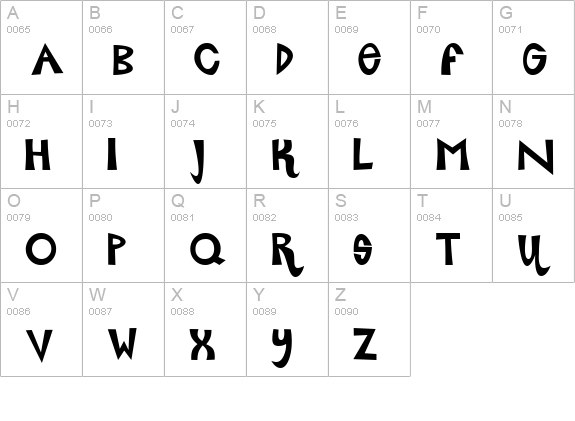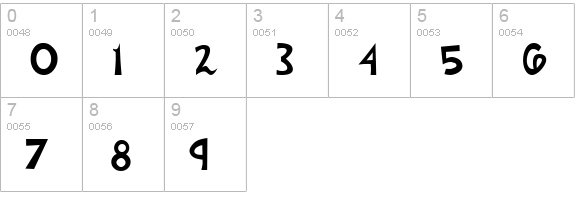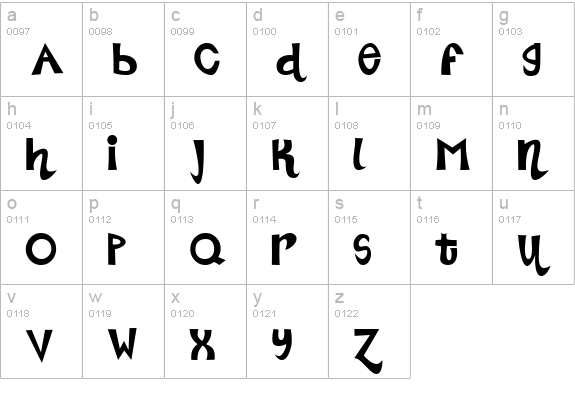
Roller Coaster Font Details
Introducing Roller Coaster font, a thrilling and dynamic typeface that will take your designs on a wild ride! With its sharp angles and bold lines, Roller Coaster font exudes a sense of excitement and energy, perfect for projects that need a touch of adventure. Whether you're creating posters, logos, or social media graphics, this font will make your text stand out and grab attention. The best part? Roller Coaster font is completely free to download at FontsMarket.com! That's right, you can enjoy all the thrills of this unique font without spending a dime. So why wait? Download Roller Coaster font today and let your creativity soar to new heights!